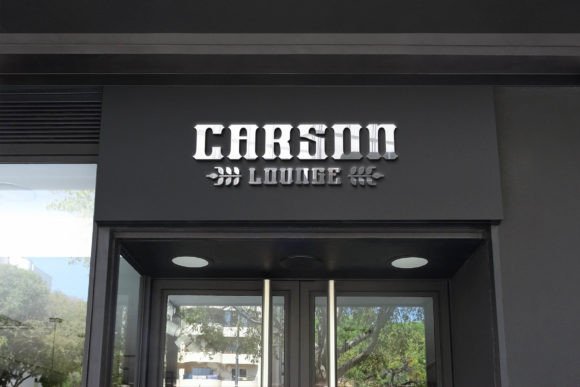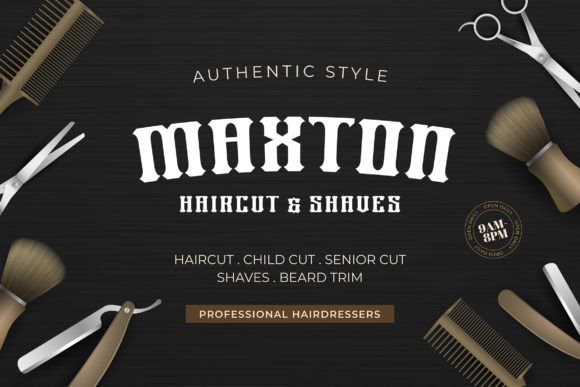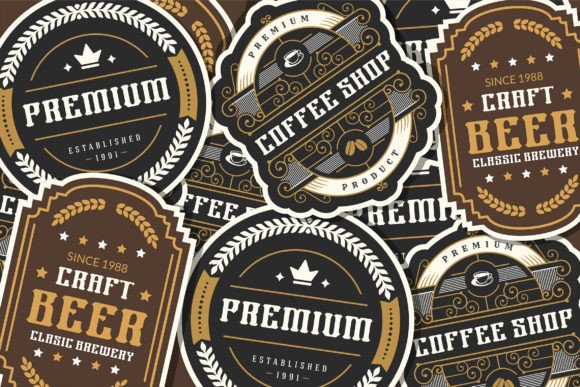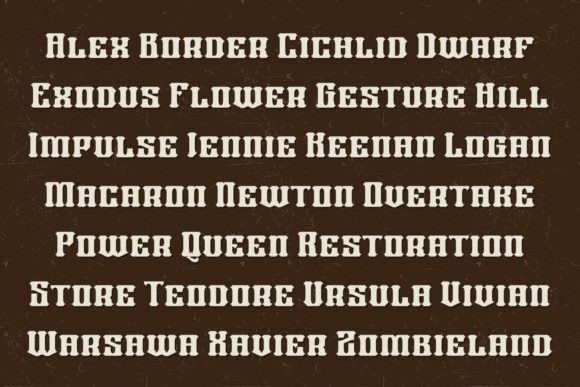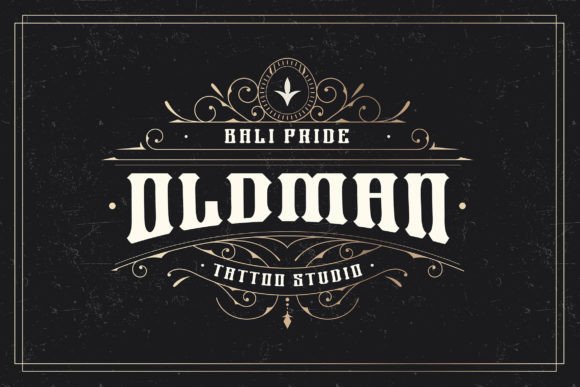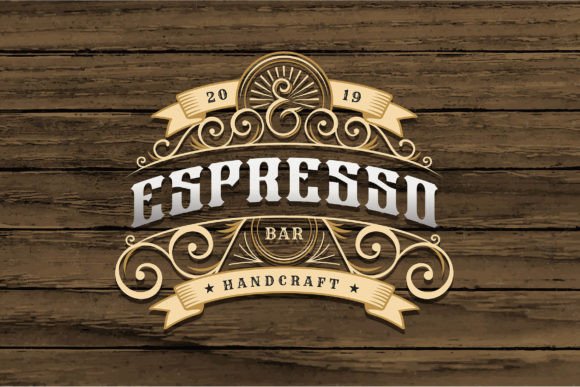
Introducing Carson Beer Font: The Ultimate Vintage Layering Display Font
Are you looking for a vintage layering display font to add a touch of nostalgia to your designs? Look no further than Carson Beer Font. This unique font is perfect for creating old-fashioned labels, posters, restaurant menus, flyers, and apparel with a cool, retro accent. In this article, we’ll dive into the features and benefits of Carson Beer Font and explore how it can elevate your design projects.
What is Carson Beer Font?
Carson Beer Font is a carefully crafted vintage layering display font that exudes a sense of nostalgia and sophistication. Its unique design features layered lettering, which gives it a distinctive, old-fashioned look that’s perfect for creating eye-catching designs. The font is highly versatile and can be used for a wide range of projects, from branding and advertising to packaging and apparel.
Key Features of Carson Beer Font
- Layered Lettering: Carson Beer Font features layered lettering, which gives it a 3D effect that’s perfect for creating eye-catching designs.
- Vintage Aesthetic: The font has a distinctly vintage feel that’s perfect for creating old-fashioned labels, posters, and other design materials.
- Highly Versatile: Carson Beer Font can be used for a wide range of projects, from branding and advertising to packaging and apparel.
Benefits of Using Carson Beer Font
So why choose Carson Beer Font for your design projects? Here are just a few benefits of using this unique font:
- Adds a Touch of Nostalgia: Carson Beer Font adds a touch of nostalgia to your designs, making them stand out in a crowded marketplace.
- Increases Brand Recognition: The font’s unique design helps to create a distinctive brand identity that sets you apart from the competition.
- Perfect for Vintage-Themed Designs: Carson Beer Font is perfect for creating vintage-themed designs, from old-fashioned labels to retro-style posters.
Tips and Tricks for Getting the Most Out of Carson Beer Font
Here are a few tips and tricks for getting the most out of Carson Beer Font:
- Experiment with Different Colors: Experiment with different colors to find the perfect combination for your design.
- Use it in Combination with Other Fonts: Use Carson Beer Font in combination with other fonts to create a unique and eye-catching design.
- Pay Attention to Kerning: Pay attention to kerning to ensure that your text looks professional and polished.
In conclusion, Carson Beer Font is a unique and versatile vintage layering display font that’s perfect for creating old-fashioned labels, posters, restaurant menus, flyers, and apparel with a cool, retro accent. Its distinctive design and highly versatile nature make it an excellent choice for designers and crafters looking to add a touch of nostalgia to their designs. With its ease of use and range of benefits, Carson Beer Font is a must-have font for any designer looking to create eye-catching and memorable designs.